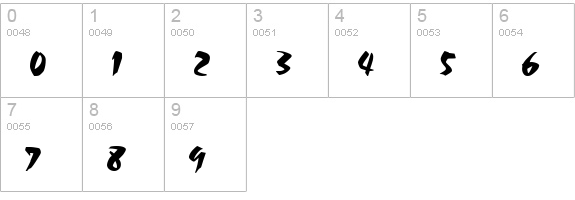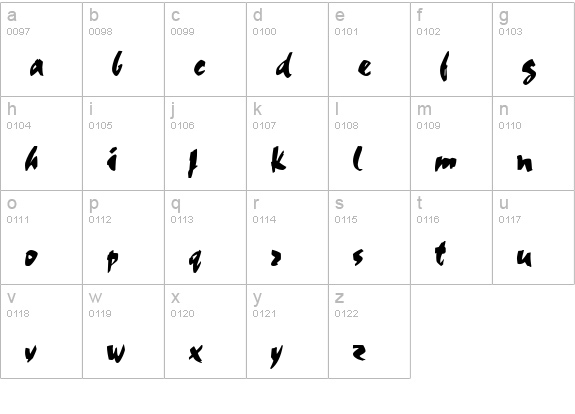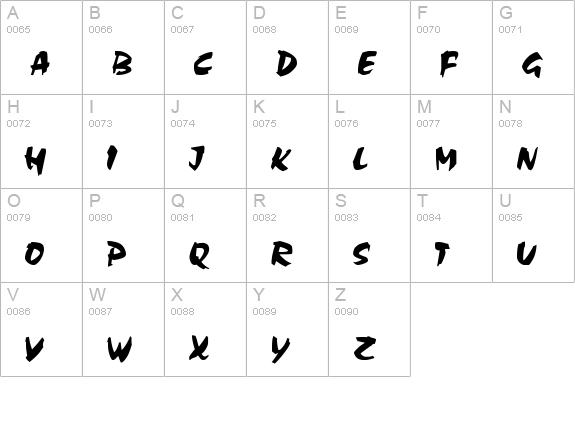
Coco font is a beautifully crafted typeface that exudes elegance and sophistication. Its sleek lines and graceful curves make it a versatile choice for a wide range of design projects. Whether you're working on a branding campaign, creating a wedding invitation, or designing a website, Coco font is sure to add a touch of refinement to your work. The best part? Coco font is completely free to download at FontsMarket.com. This means you can access this stunning typeface without any cost, making it a valuable addition to your font collection. Don't miss out on the opportunity to enhance your designs with Coco font's timeless appeal. Download it today and elevate your projects with this exquisite typeface.